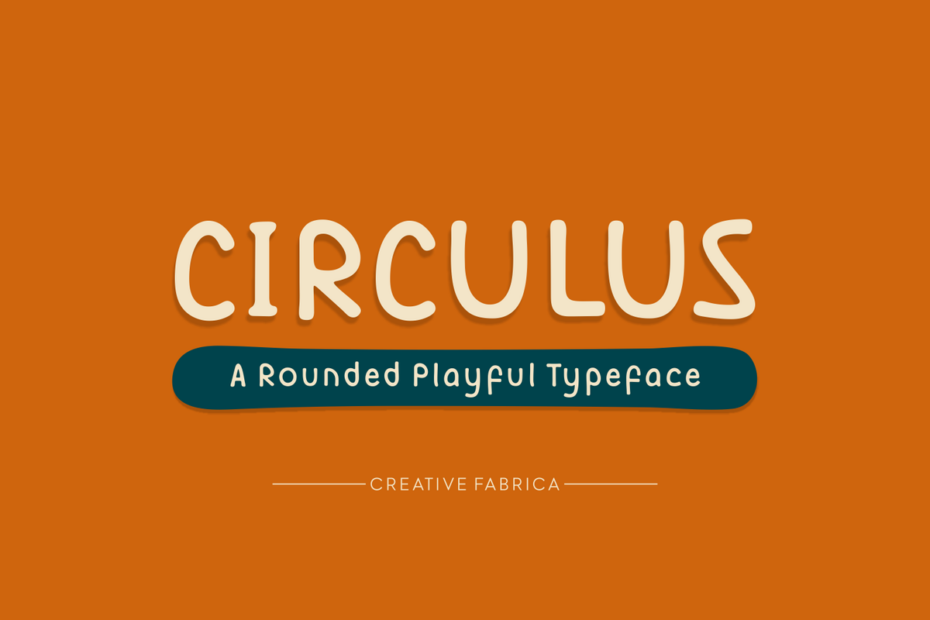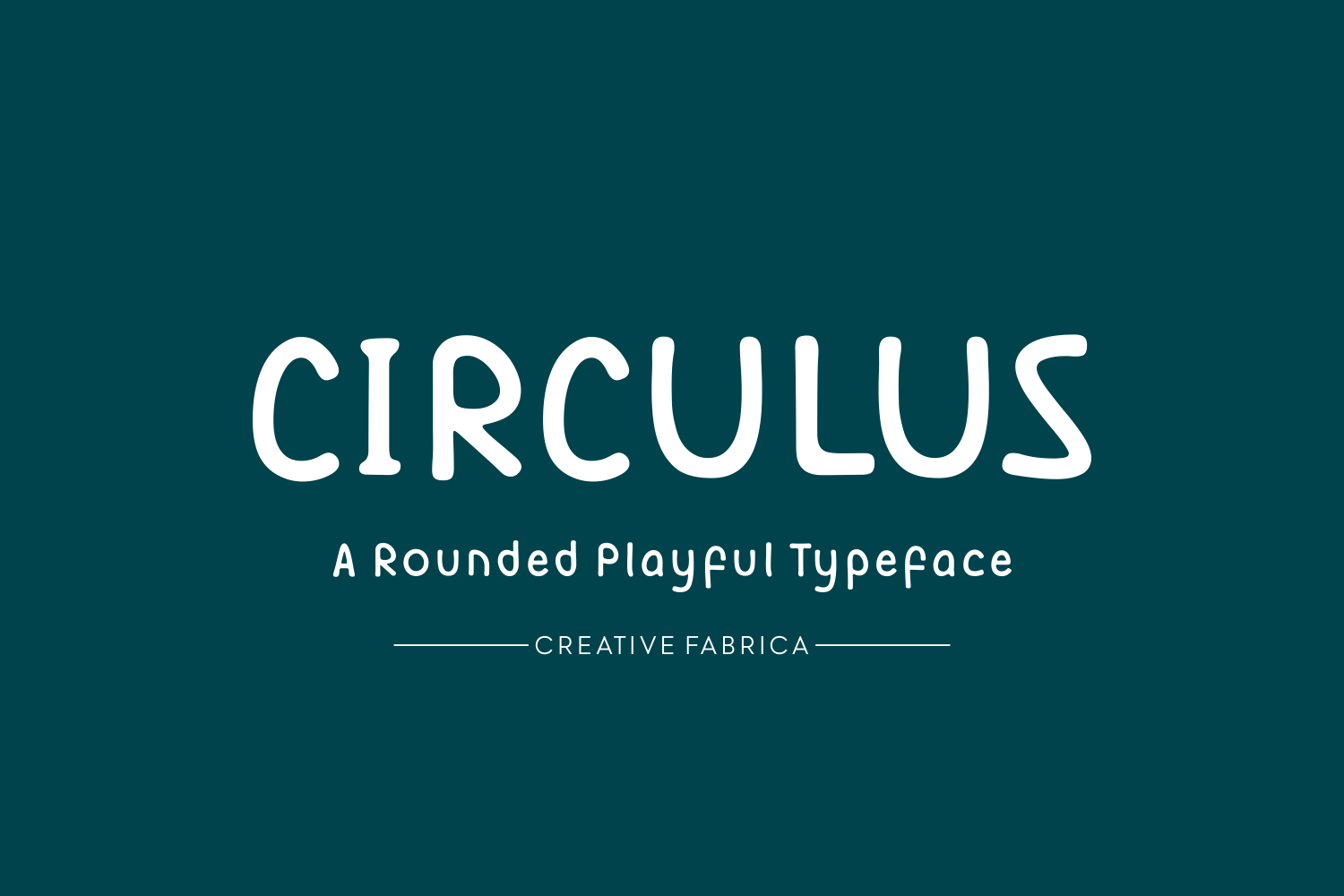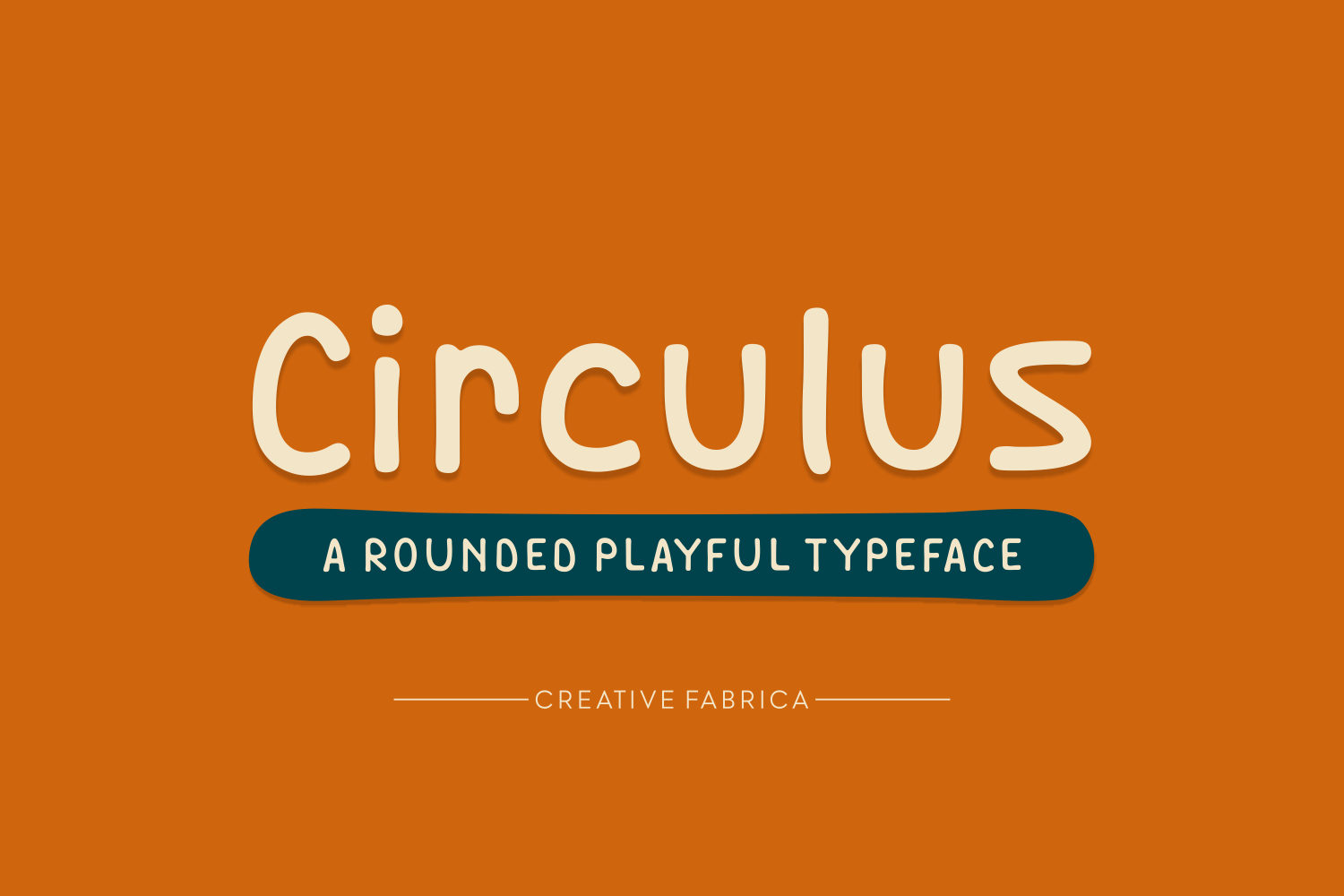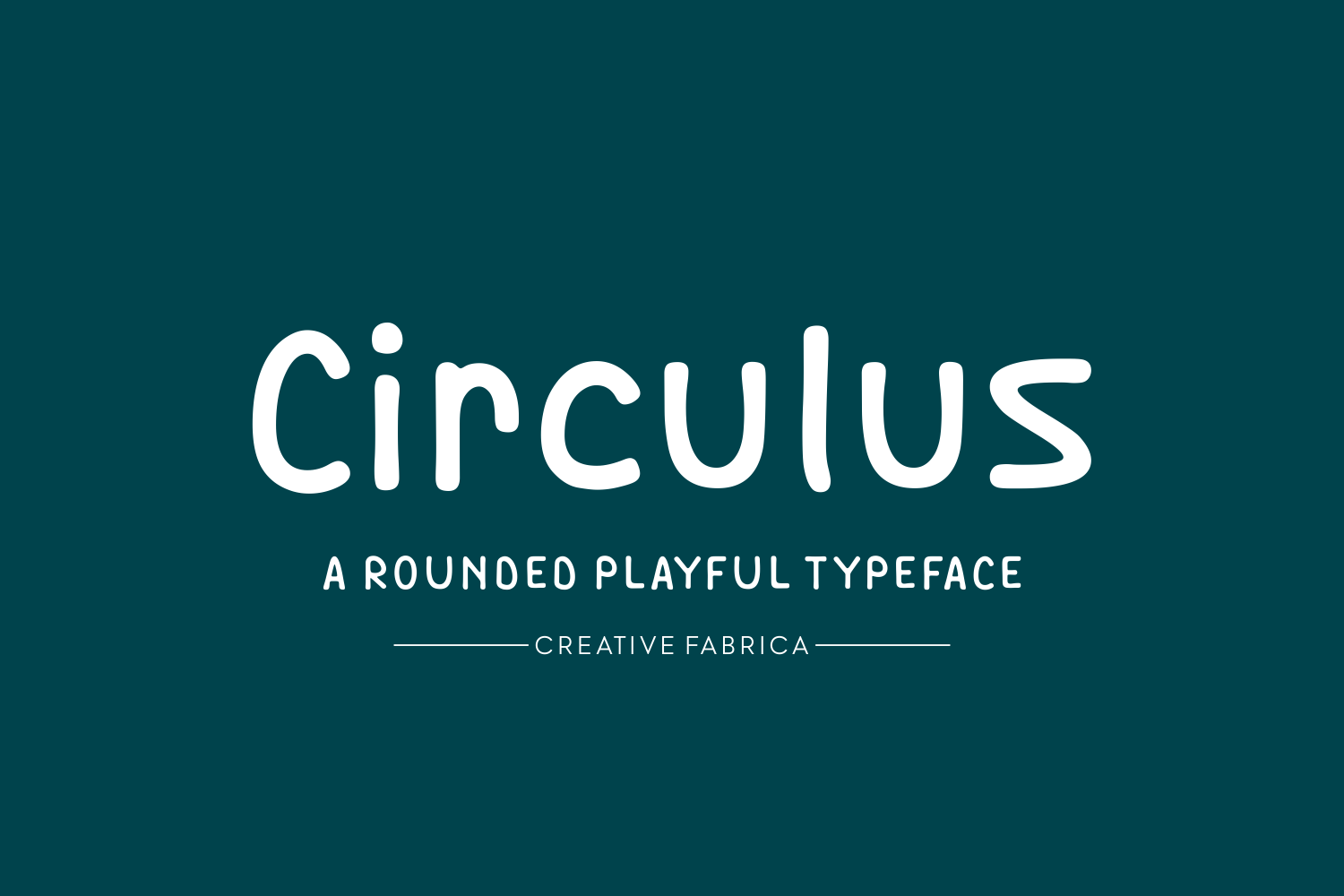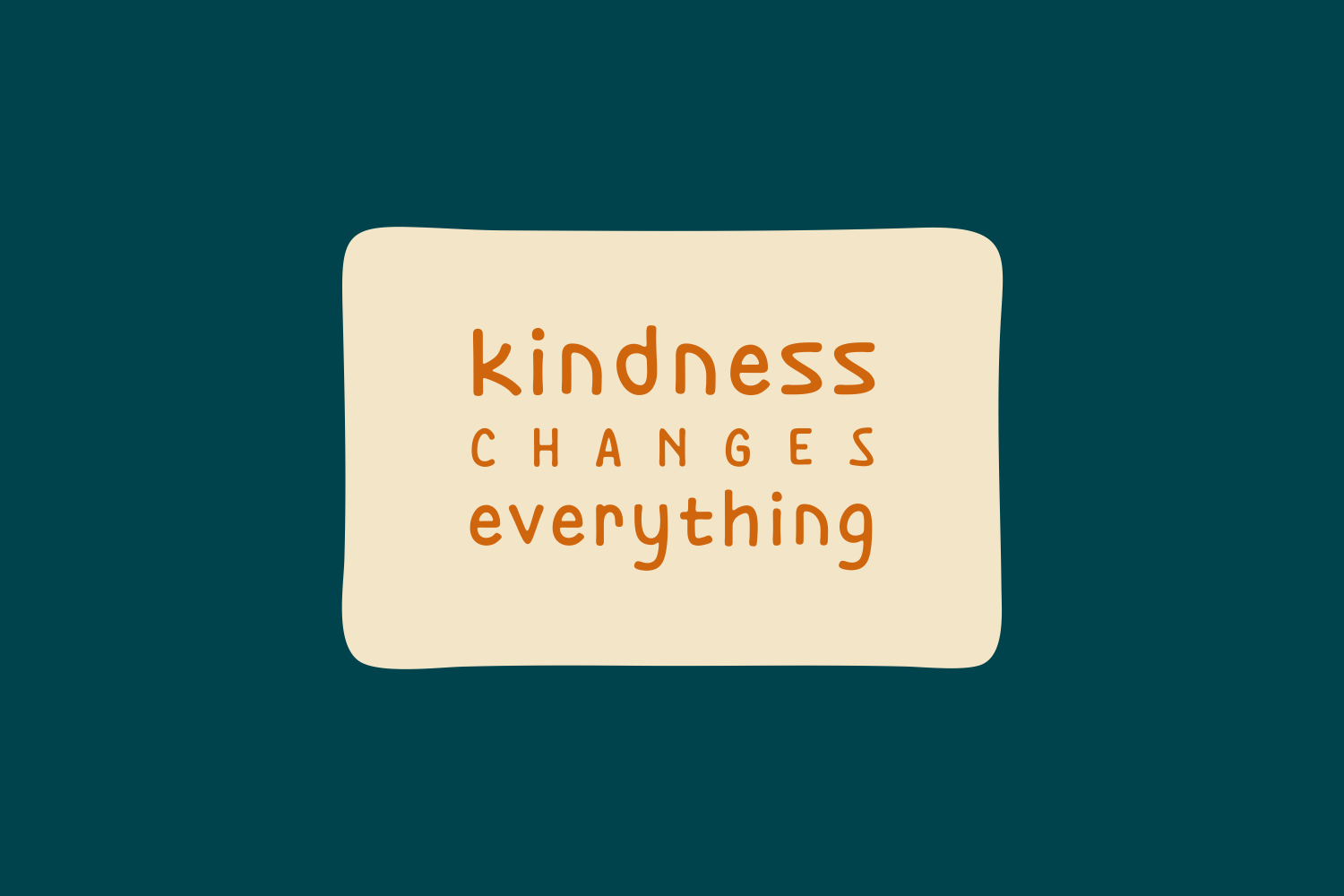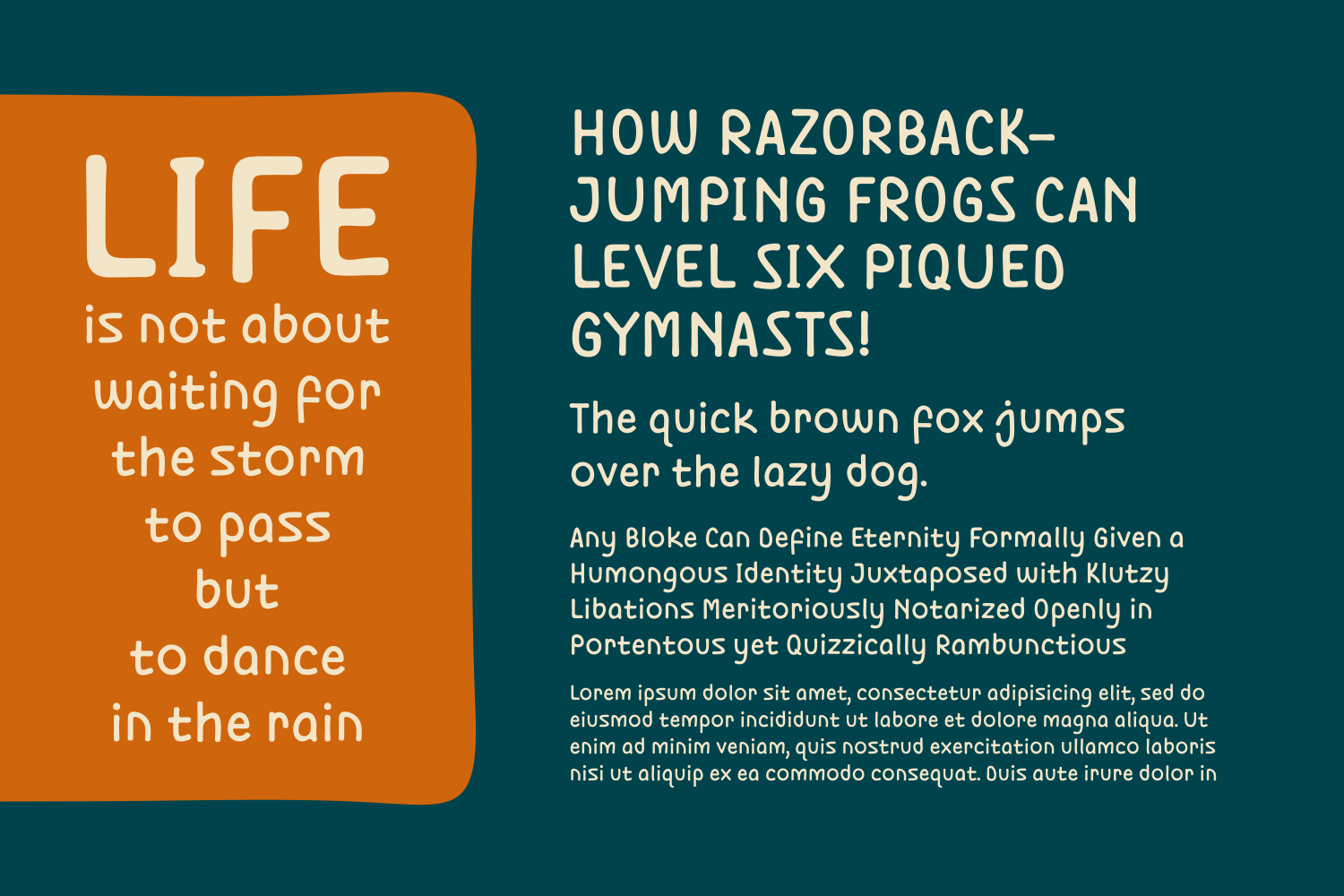
Unlock the Secret to Creating Whimsical Designs with Circulus Font
Have you ever found yourself staring at a blank canvas, eager to bring your creative vision to life, but struggling to find the perfect font to set the tone? I know I have! It’s that moment when the right font can make all the difference between a dull design and a stunning masterpiece. For designers and crafty enthusiasts alike, finding the perfect font can be a game-changer.
Enter the Circulus Font, a soft and rounded masterpiece that exudes playfulness and warmth. This delightful font is not just a pretty face; it’s a valuable addition to any designer’s toolkit. Whether you’re creating custom labels, gift tags, or even designing your own epoxy resin tumblers (like in our popular CF Class: How to Create Epoxy Resin Tumblers), the Circulus Font is sure to bring a smile to your customers’ faces.
Circulus Font Key Features
- Font Family: Circulus Font is a sans-serif font family designed for modern and minimalist designs. It is available in multiple weights, from light to bold.
- Character Count: The Circulus Font family includes a wide range of characters, including Latin, Cyrillic, and Greek alphabets, as well as punctuation and symbols.
- Unique Characteristics: The Circulus Font is known for its clean and rounded lines, making it perfect for digital and print designs where readability is crucial.
Circulus Font Review
I’ve had the chance to work with Circulus Font, and here’s my honest take.
The Circulus Font has a unique, hand-drawn aesthetic that can add a touch of whimsy to your designs. The font is highly customizable, making it easy to adjust the weight, width, and style to suit your project’s needs.
- Highly customizable with a wide range of weight, width, and style options
- Unique, hand-drawn aesthetic that can add a touch of whimsy to your designs
- Works well for a variety of design projects, including logos, typography, and more
While the Circulus Font is highly customizable, it can be overwhelming to navigate the many options. Additionally, the font may not be suitable for projects that require a more formal or professional tone.
- Can be overwhelming to navigate the many customization options
- May not be suitable for projects that require a more formal or professional tone
- Some characters may not be fully formed or legible at certain font sizes
The Circulus Font is a great choice for designers looking to add a touch of personality to their projects. While it has some limitations, its unique aesthetic and high level of customization make it a valuable addition to any design toolbox.
Circulus Font is suitable for a variety of design projects, including:
- Typography-based designs